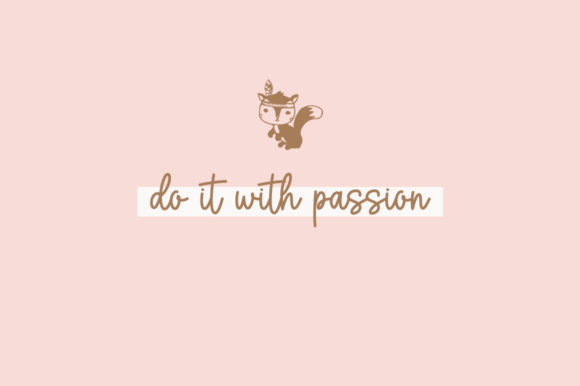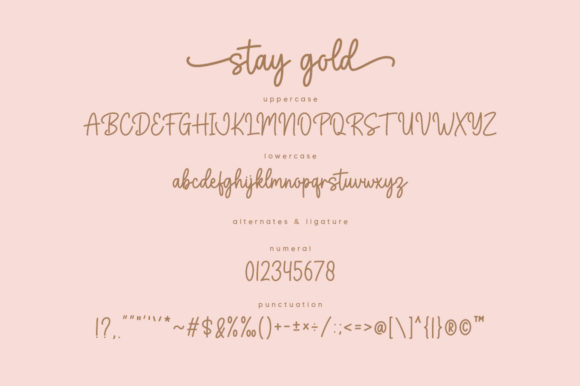
Stay Gold Font
Stay Gold is a dainty handwritten font, masterfully designed to become a true favorite. It maintains its classy calligraphic influences while feeling contemporary and fresh. Stay Gold is PUA encoded which means you can access all of the glyphs and swashes with ease!